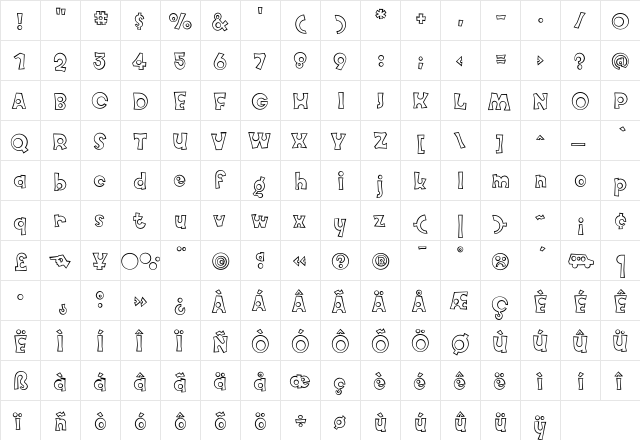
Knobcheese Outline
Design Context for Knobcheese Typeface
Knobcheese brings ornamental detail and strong personality to headlines and identities, where visual impact matters more than quiet functionality.
Font Pairing: Pair with a clean neutral sans-serif for body copy to let Knobcheese's character lead without overwhelming the composition.
Pro Tip: Treat Knobcheese as the centrepiece of your typographic hierarchy. One strong heading set in a decorative face can carry an entire layout.